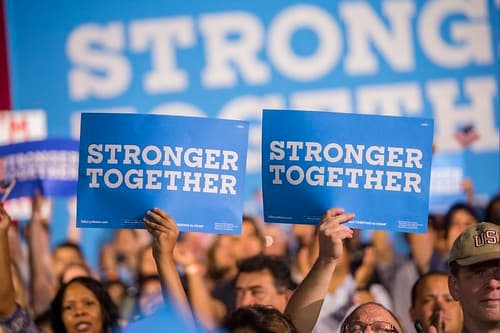
Type on the campaign trail
US designers contribute type, posters, badges and branding to the Hillary Clinton cause
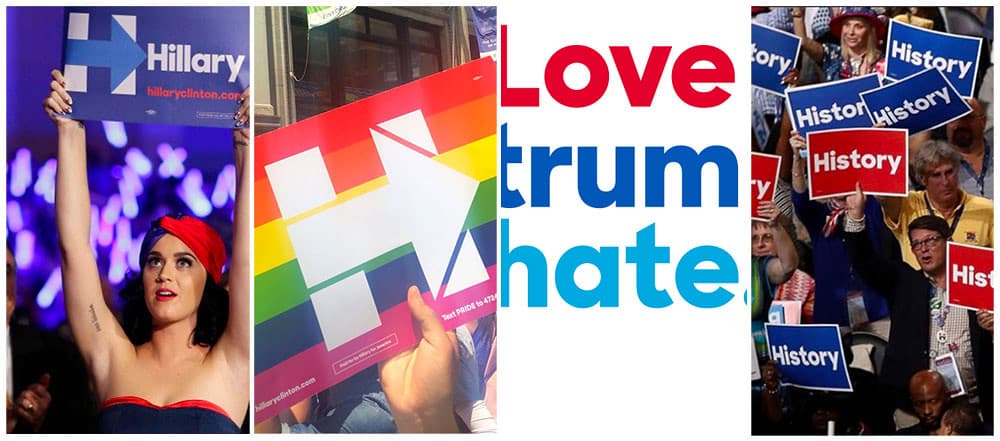
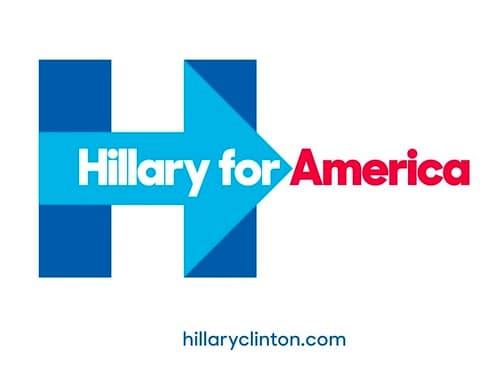
Pentagram’s Michael Bierut and his team designed the campaign identity in 2015 which used Sharp Type foundry’s typeface Sharp Sans Display No.1 as the foundation for their identity system. The foundry’s co-founder Lucas Sharp saw this application as an ‘opportunity to take the design further. We had drawn a tightly spaced, Lubalin-esque geometric sans that looked really good big. Now we wanted to draw a version with utility and versatility, that could work in any situation.’
Bierut’s extensive identity system would be used by all manner of people on the campaign trail – from professionals to volunteer organisers – which meant that the detailed instructions laid out in the style guide for tracking a display face used for other applications were unlikely to be followed. Sharp writes, ‘It occurred to us that a serious presidential campaign needs a typeface that can work in any situation.’ As a result, Sharp Sans grew to include Sharp Unity for Hillary, Sharp Slab Extrabold, Sharp Slab Book, Sharp Stencil for Hillary and Sharp Stencil.
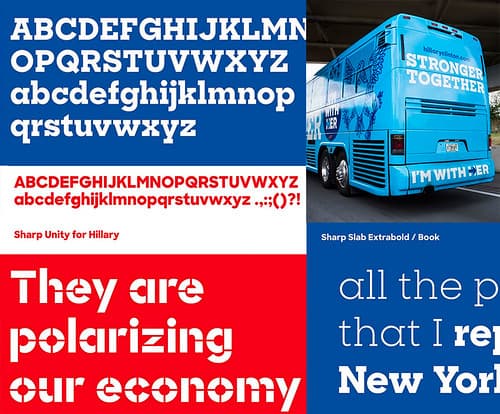
Jennifer Kinon of design and branding agency Original Champions of Design (OCD) stepped away from her agency role to become Hillary Clinton campaign’s design director. Kinon was tasked with rolling out and extending from the identity designed by Michael Bierut (Pentagram) that used the Sharp Sans family. Both Bierut and Sharp have praised Kinon’s work online and many of her designs have gone viral including the ‘Love Trumps Hope’ image.